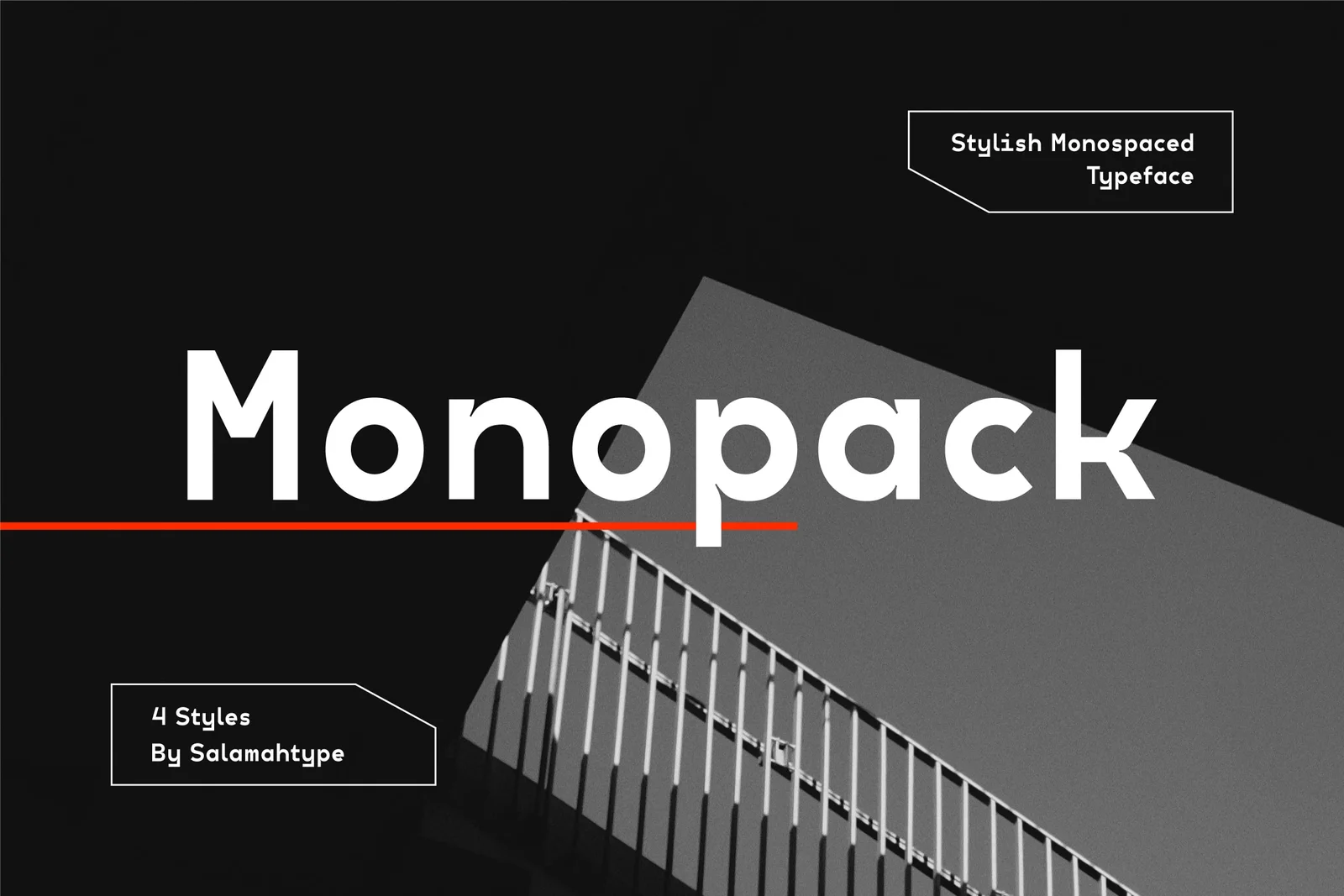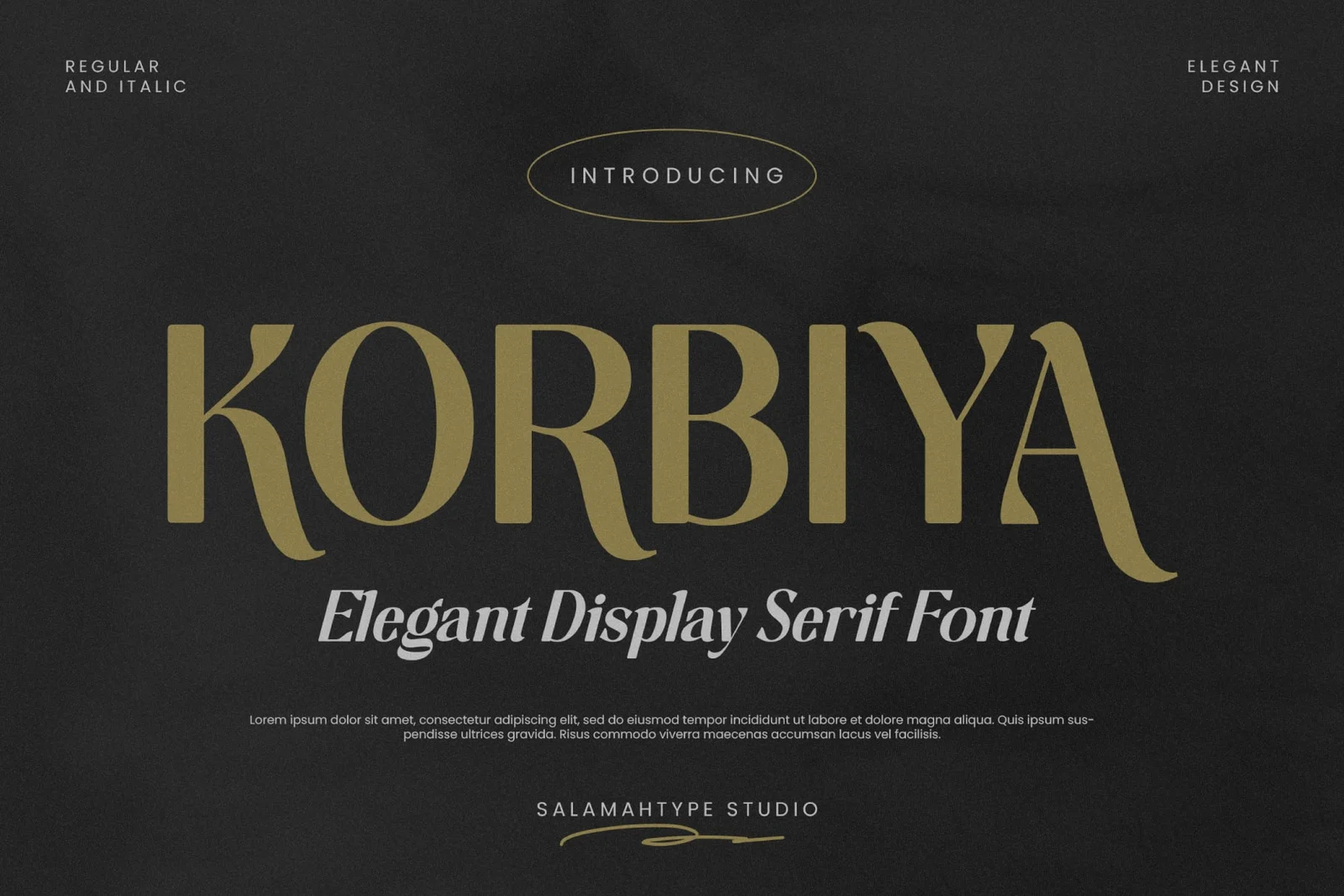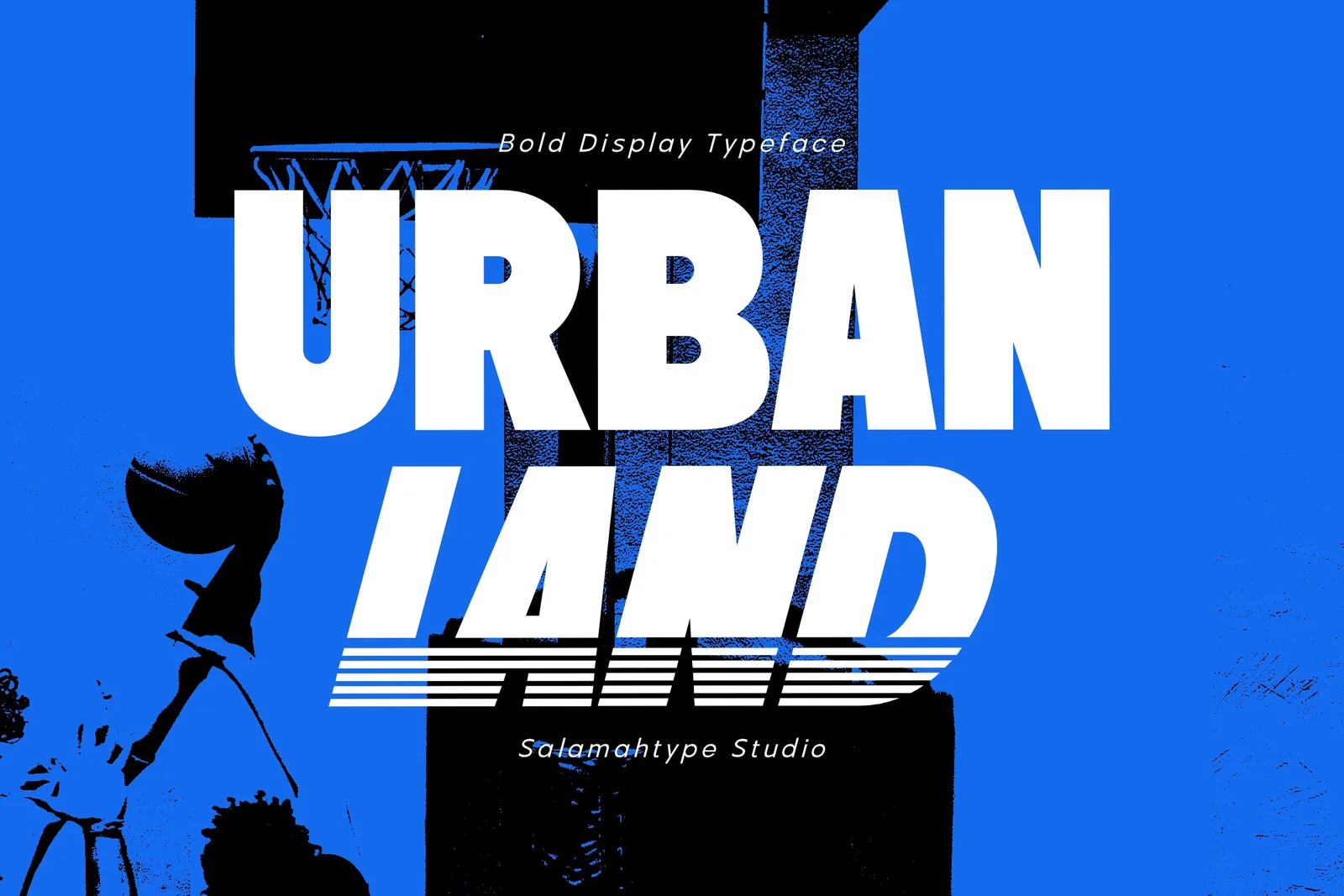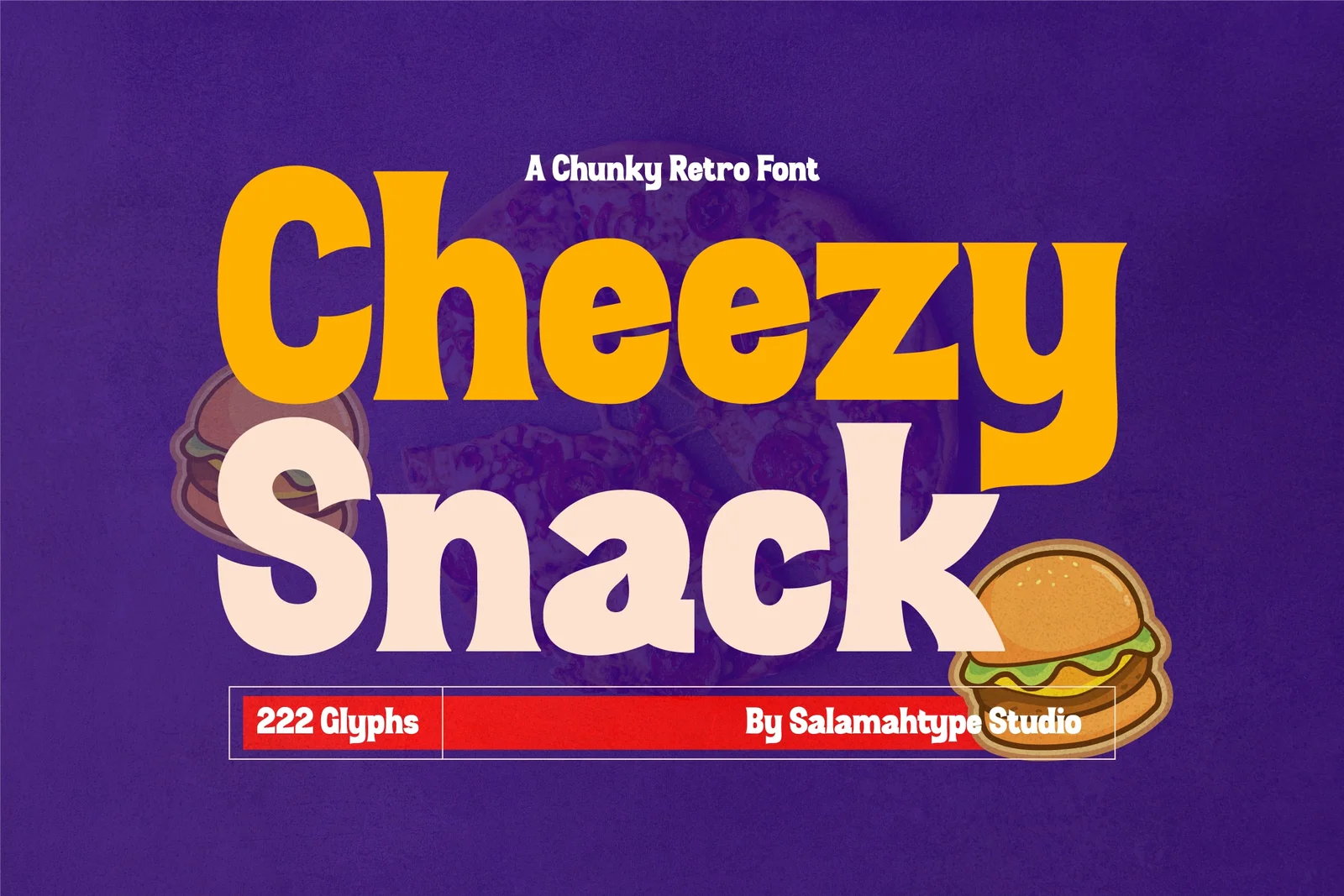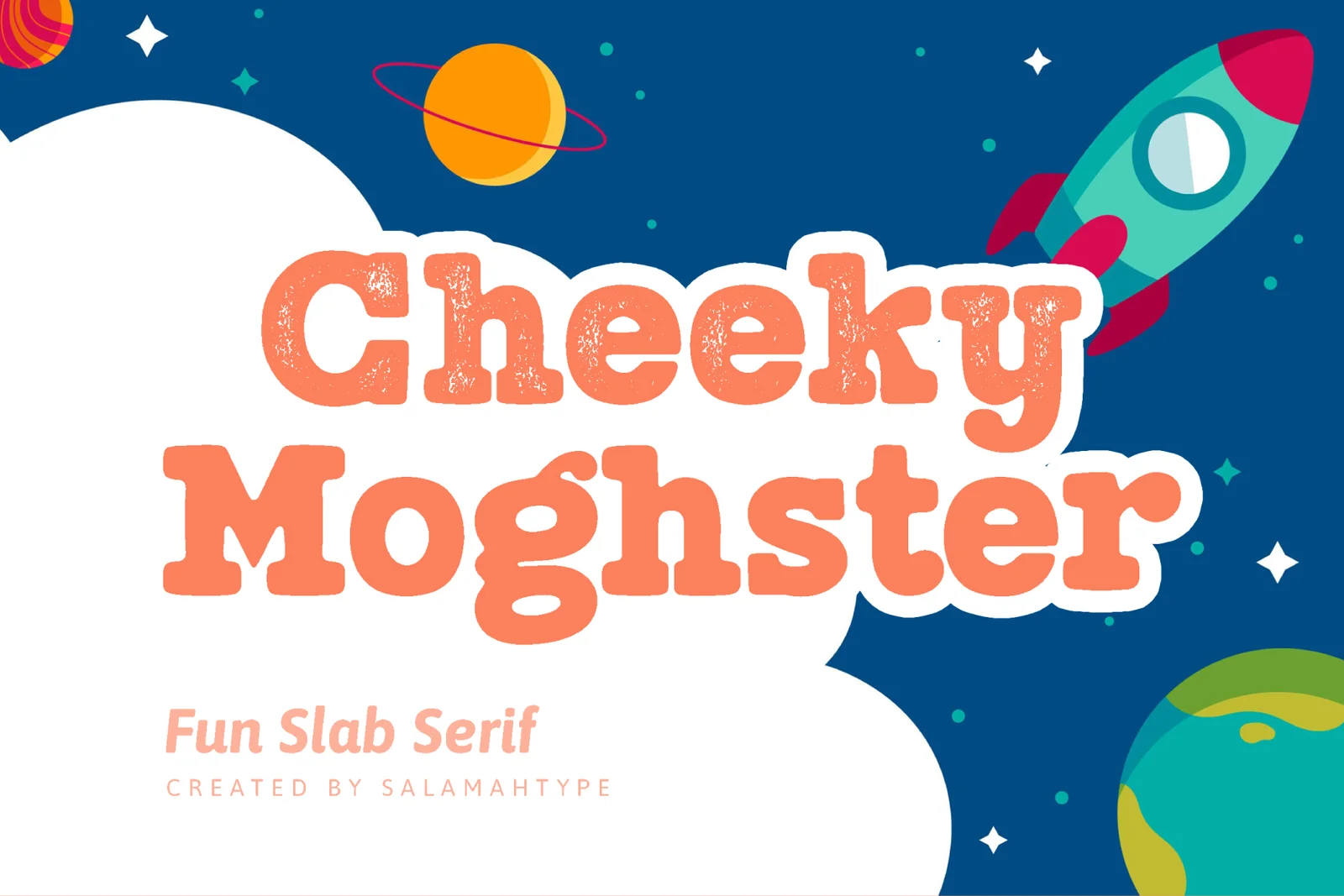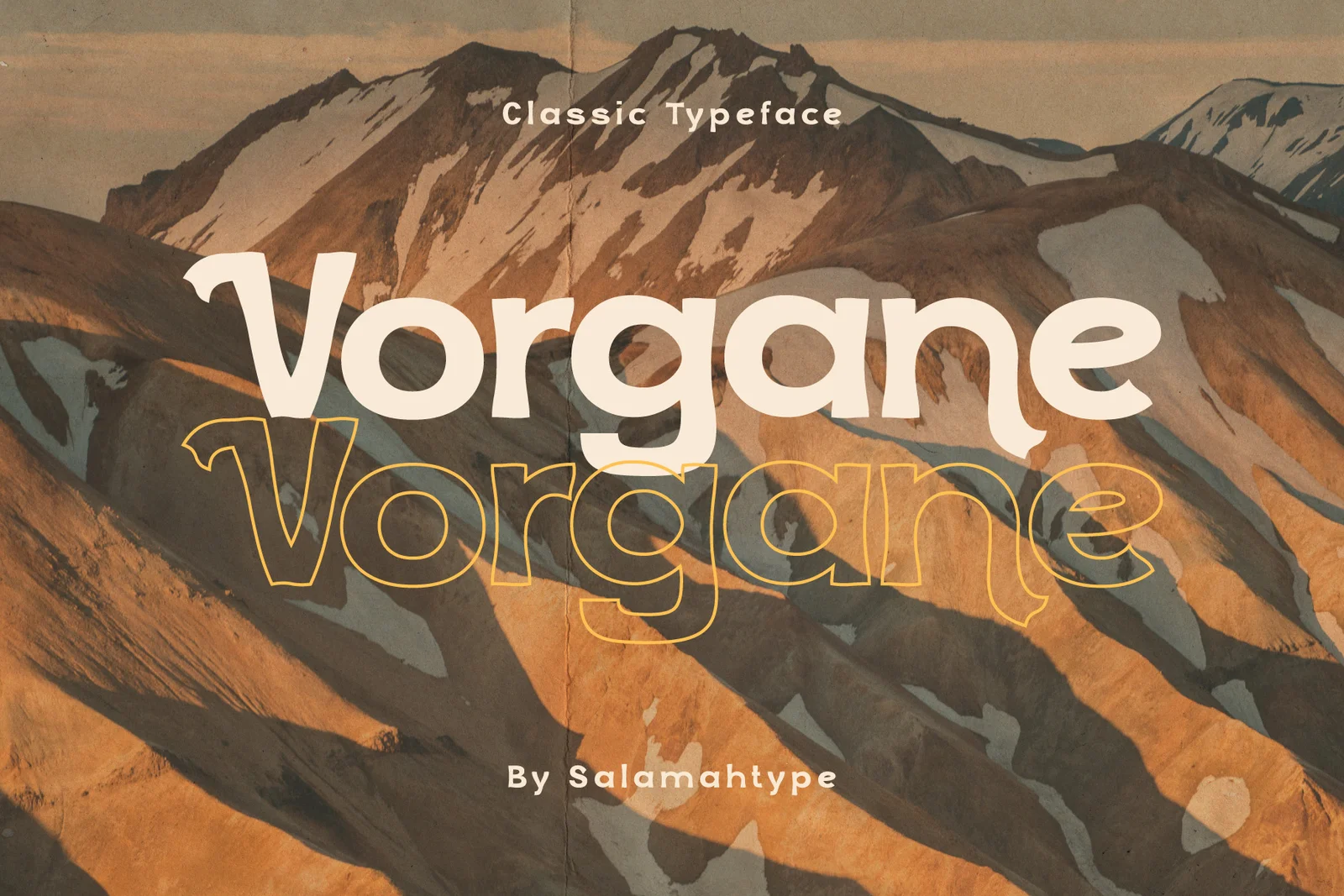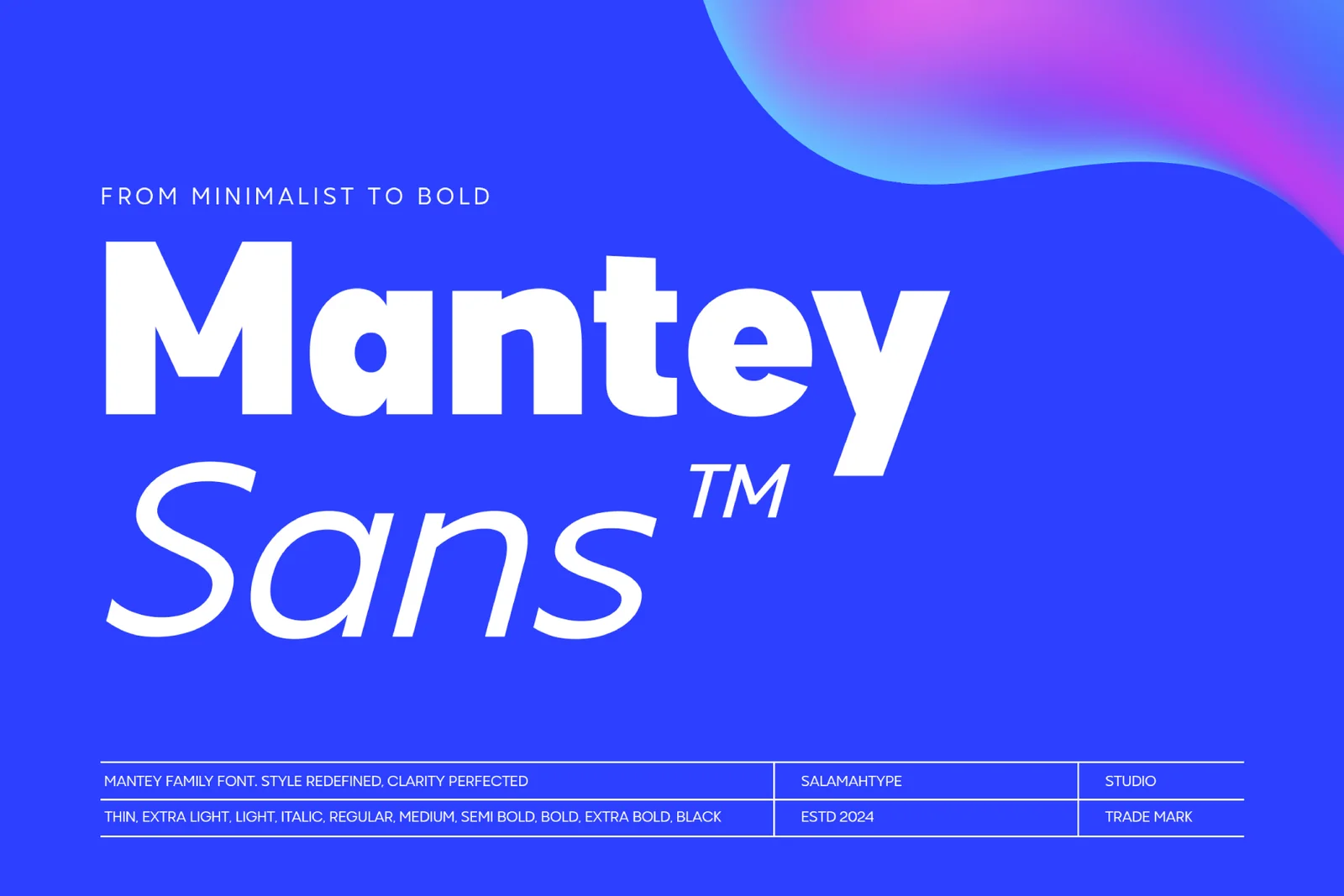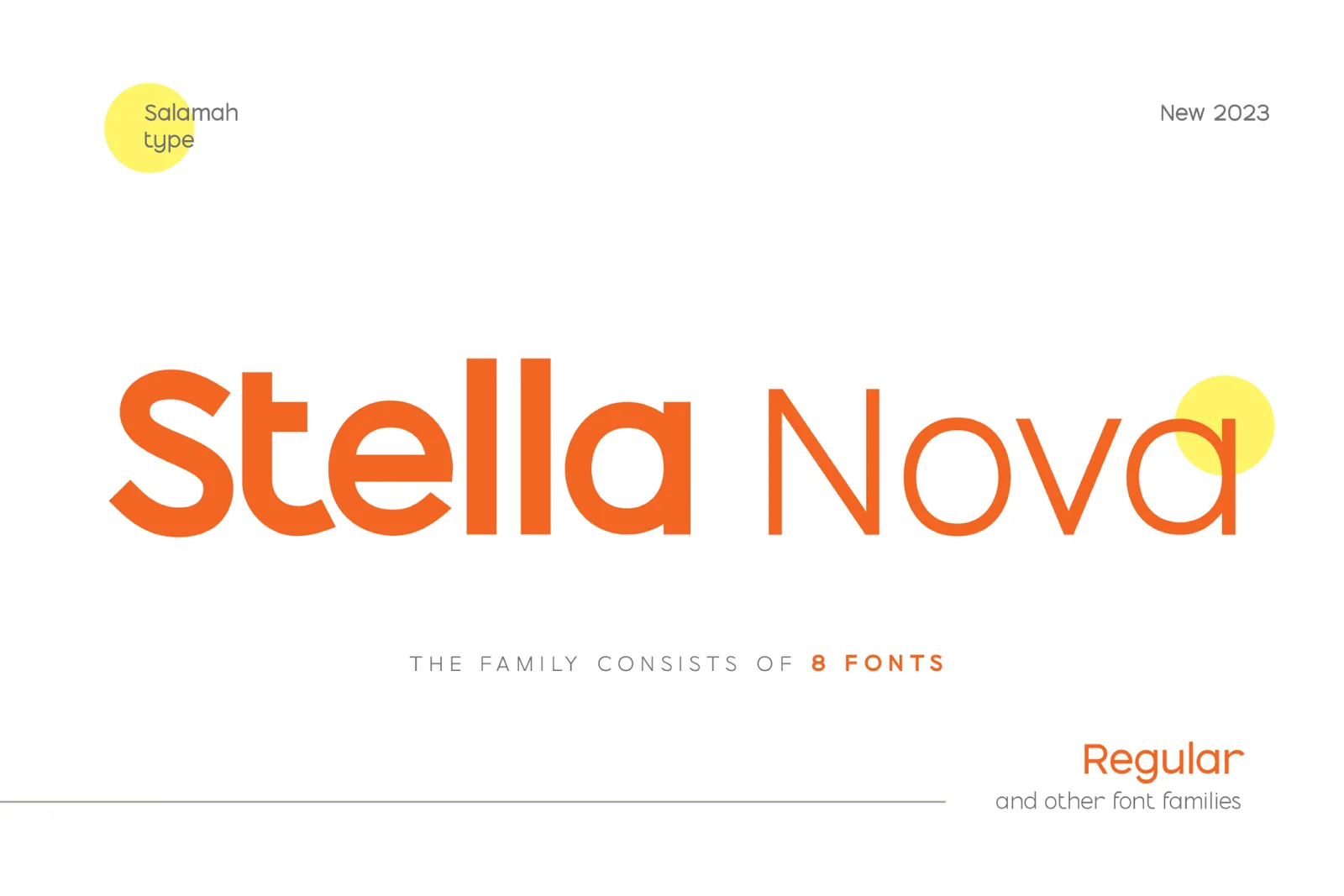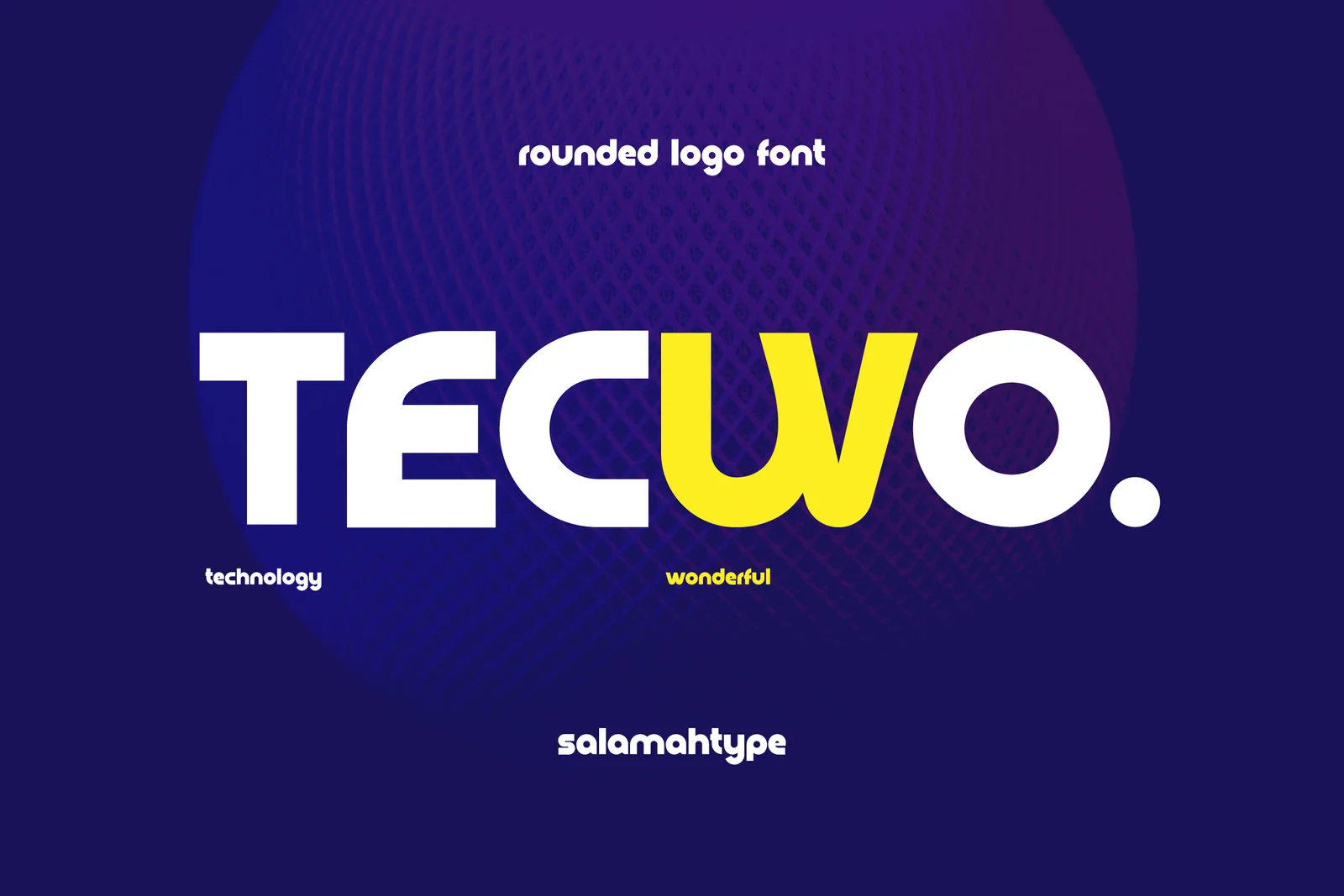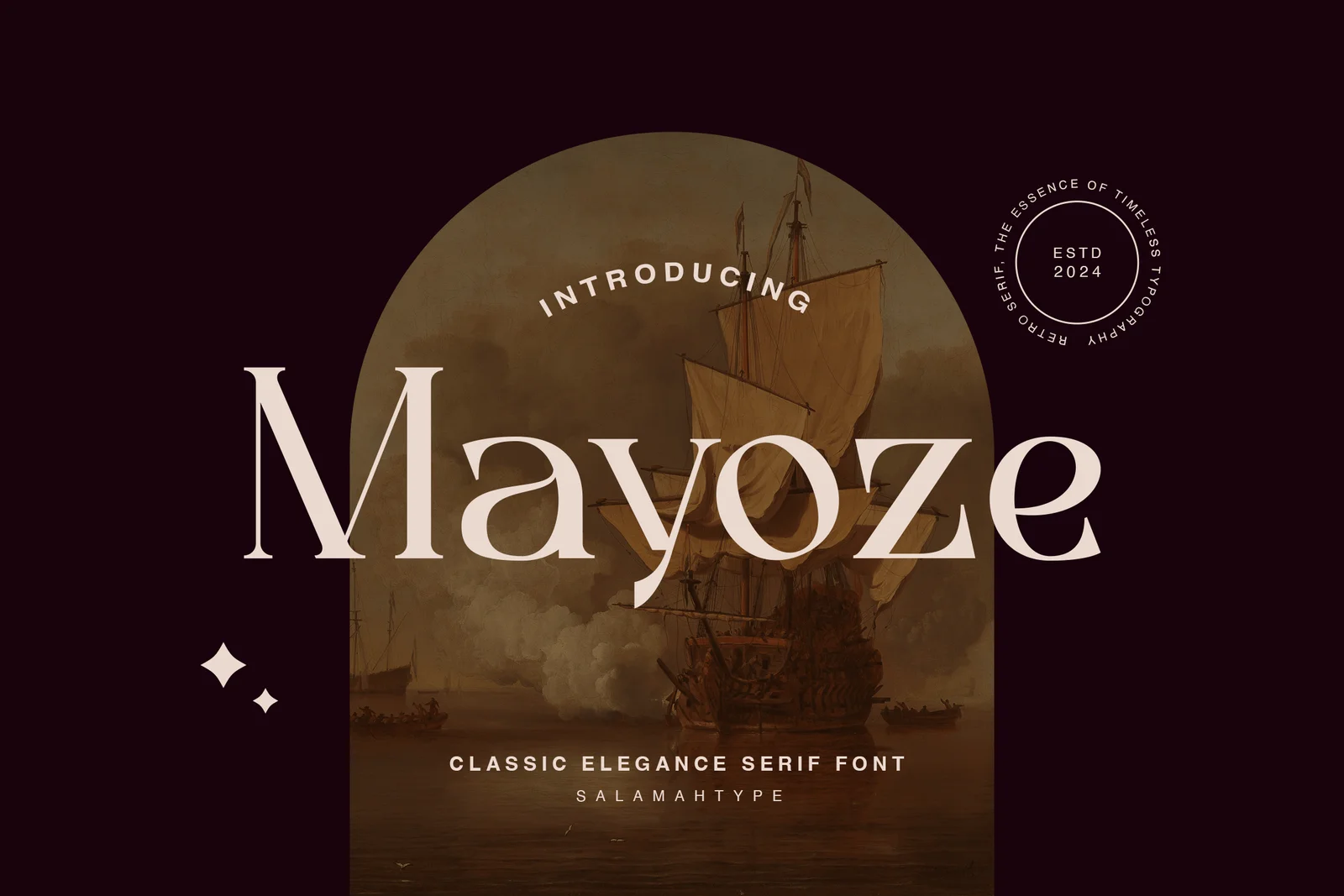
Top 16 Best Fonts for Responsive Web Design Across All Devices
With users accessing websites from various devices, especially mobile phones, ensuring legibility is more important than ever. That’s why choosing the right font is crucial in maintaining readability across screen sizes. Below, you’ll find the best fonts for responsive web design and the best practices for using them effectively.
Key Takeaways:
• Sans-serif and serif fonts are strong choices for responsive web design, offering excellent scalability and adaptability across different devices.
• Using smaller font sizes improves load speed and performance across platforms.
• Display and script fonts can work in responsive design, but should be used thoughtfully, ideally for titles or headings, not body text.
16 Best Fonts for Responsive Web Design
To create a responsive website, you need fonts that scale well and stay readable on any device. These top picks will help you do that.
1. Monopack
Monopack is a sleek monospaced sans-serif with geometric shapes and balanced spacing, great for minimalist layouts. It comes in four styles: regular, oblique, condensed, and condensed oblique, offering flexibility across screen sizes.
2. Mantey
Mantey Sans features clean, modern lines and a neutral tone that fits perfectly in content-heavy designs. With a full range of weights from thin to black, it’s both versatile and highly readable on any device and browser.
3. Monday
Monday is one of the best fonts for responsive web design that brings a rounded, minimalist feel. It’s lightweight and ideal for fancy, modern designs that require responsive flexibility.
4. Stella Nova
Stella Nova is a clean, geometric sans-serif font that blends minimalism with elegance. With balanced curves and multiple weights, it stays highly legible and renders consistently across all major browsers.
5. Tecwo
Tecwo is not only visually striking but also built for modern digital environments, making it a smart choice for responsive design. Its rounded letterforms stay crisp across platforms, making it perfect for tech-savvy yet approachable branding.
6. Mayoze
Unlike many other best fonts for responsive web design, Mayoze stands out with its stylish letterforms and high-end aesthetic. Its refined elegance makes it perfect for branding and headlines.
7. Wolfers
Wolfers combines a playful, decorative look with solid readability. Its rounded sans-serif style and well-balanced characters are great for branding and content-focused layouts.
8. Alice Fairy
Alice Fairy is an elegant serif font with whimsical, fantasy-inspired curves. Its high-contrast strokes and graceful swashes are beautiful for feminine branding, titles, or eye-catching headings.
9. Rampiro
Rampiro has clear shapes and balanced proportions, making it highly legible at any size. Its sleek, neutral design scales well for body text, headers, menus, and UI elements.
10. Korbiya
Korbiya features elegant, artistic serifs that convey a sophisticated, luxurious feel, perfect for attractive titles. It also remains visually appealing and functional.
11. Small Memory
10. Korbiya
Small Memory has a clean, rounded, handwritten style that feels casual and friendly. Unlike most handwritten fonts, it maintains excellent legibility on small screens, making it one of the best fonts for responsive web design.
12. Kimburgery
Kimburgery is an elegant, thin-lined font, best used for headings or callouts. While it is more suitable for larger text, its clean design is still readable on smaller screens when used carefully.
13. Urban Land
Urban Land is a bold, heavyweight sans-serif that scales smoothly at any screen size. Its strong presence and sharp legibility make it perfect for responsive web design.
14. Cheezy Snack
Cheezy Snack is a playful display font that balances personality with clarity. Its unique style grabs attention, making it perfect for bold headings or branding in responsive layouts.
15. Cheeky Moghster
Cheeky Moghster brings a fun, kid-friendly energy while staying readable on any screen. This balance of playfulness and clarity makes it a fantastic font for family-oriented or playful projects.
16. Vorgane
Vorgane blends vintage charm with a modern feel. Despite its distinctive ligatures, the font remains highly legible across many browsers and platforms.
Best Practices When Using Fonts in Responsive Design